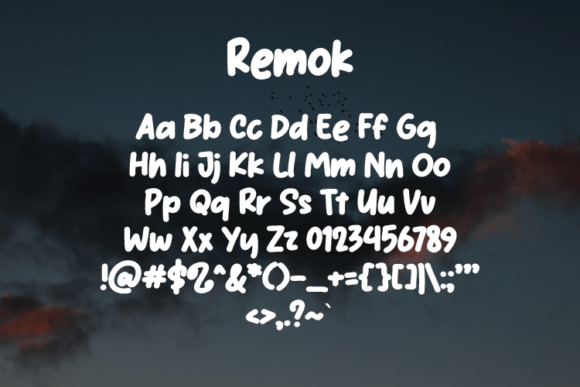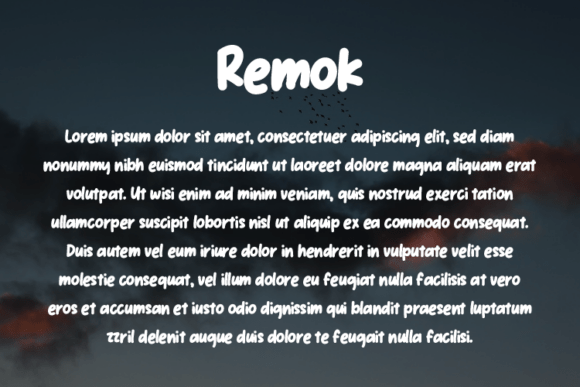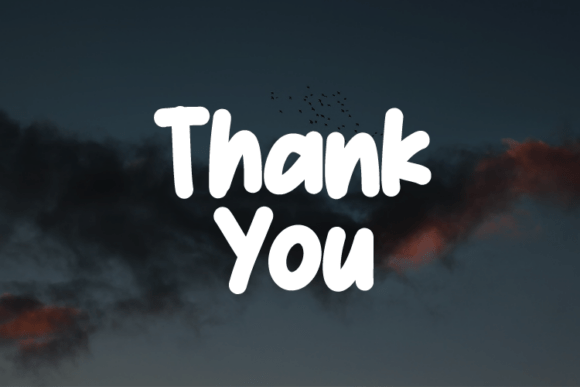
Introduction to Remok Font
Have you ever been working on a creative project and suddenly realized that the perfect font to bring it all together is just out of reach? That’s exactly what happened to me last week while working on a branding project for a new startup. I spent hours searching for the perfect font, but nothing seemed to fit the bill until I stumbled upon the Remok Font.
This modern and elegant typeface is designed with flexibility and readability in mind, making it an ideal choice for a wide range of media. With its high-quality design and transparent background, the Remok Font is a valuable resource for designers who want to take their projects to the next level.
Key Features of Remok Font
- High-quality, professional font designed for creative projects
- Transparent background, making it ideal for use on any design
- Includes a range of characters, including uppercase and lowercase letters, numbers, and punctuation
- Designed to be highly legible at a range of resolutions, from 72 dpi to 300 dpi
- Perfect for use as a design resource in a variety of creative projects, including graphic design, digital art, and more
- Comes in a single weight, with a clean and modern aesthetic
Honest Review: Remok Font
As a designer, I’ve had my fair share of experimenting with various fonts for my creative projects. Recently, I stumbled upon the Remok Font, and I must say, it’s a high-quality design resource that’s worth checking out.
- High-quality design: The Remok Font boasts a sophisticated and modern design that’s perfect for a variety of creative projects.
- Transparent background: The font’s transparent background makes it easy to customize and use on any design project.
Overall, I’m impressed with the Remok Font’s versatility and high-quality design. It’s an excellent resource for designers looking for a unique and stylish font for their creative projects.
- Limited font styles: The Remok Font only comes in a limited number of font styles, which might not be suitable for designers who need a wide range of font options.
- Not ideal for complex designs: While the font is great for simple designs, it might not be the best choice for complex or multi-faceted projects.
Despite its limitations, the Remok Font is a solid choice for designers looking for a high-quality, free font for their creative projects.
Tips for Getting the Most Out of Remok Font
Use the Remok Font with a transparent background to create a modern and sleek design. Experiment with different font sizes and styles to add visual interest to your design. You can also pair the Remok Font with other design resources, such as graphics and images, to create a unique and creative project.
Common Use Cases for Remok Font
The Remok Font is perfect for a variety of creative projects, including social media graphics, presentations, and brochures. It’s also great for use in branding and marketing materials, such as logos and business cards.